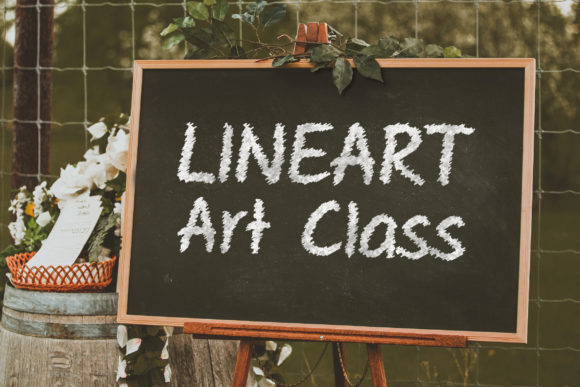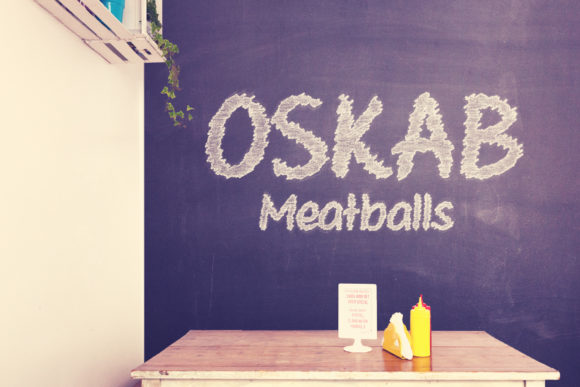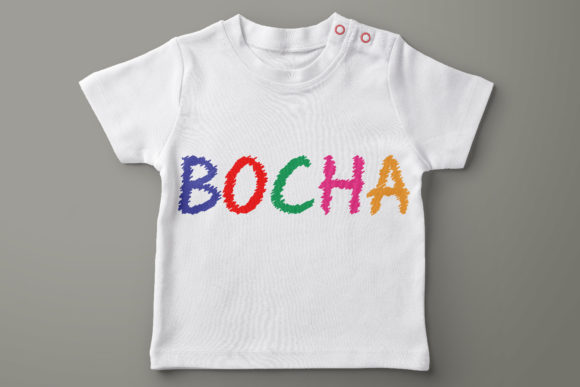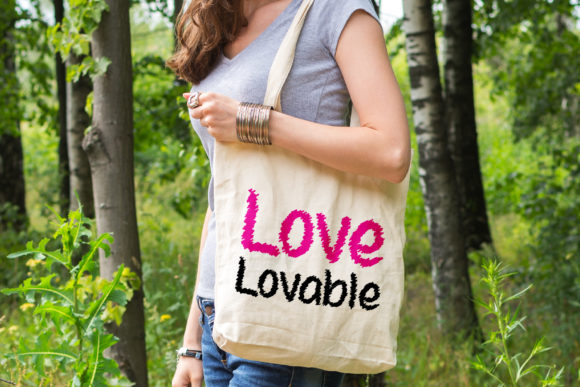
Introducing Arsiran Font: The Perfect Chalkboard-Inspired Typeface for Educational Projects
Are you a designer or crafter looking for a unique and fresh typeface to add a touch of personality to your school or educational projects? Look no further than Arsiran Font! This simple yet distinctive font is designed to give your text a chalkboard look that’s sure to capture the attention of your audience.
What is Arsiran Font?
Arsiran Font is a carefully crafted typeface that mimics the look of chalkboard writing. Its clean lines, subtle imperfections, and rustic charm make it the perfect choice for any project that requires a friendly, approachable feel. Whether you’re working on a school brochure, a educational website, or a DIY craft project, Arsiran Font is sure to add a touch of whimsy and personality to your text.
Key Features of Arsiran Font
- Simple and Fresh Design: Arsiran Font boasts a clean and modern design that’s easy to read and understand.
- Unique Chalkboard Look: The font’s chalkboard-inspired aesthetic adds a touch of nostalgia and playfulness to your text.
- Perfect for Educational Projects: Arsiran Font is specifically designed for school and educational projects, making it an ideal choice for teachers, students, and educators.
- Highly Versatile: The font can be used for a wide range of projects, from digital media to print materials.
Benefits of Using Arsiran Font
So why choose Arsiran Font for your next project? Here are just a few benefits of using this amazing typeface:
- Adds Personality to Your Text: Arsiran Font’s unique design helps your text stand out from the crowd and adds a touch of personality to your project.
- Enhances Readability: The font’s clean lines and simple design make it easy to read, even for younger audiences.
- Evokes a Sense of Nostalgia: The chalkboard-inspired aesthetic of Arsiran Font is sure to evoke memories of childhood and learning.
How to Use Arsiran Font in Your Projects
Using Arsiran Font in your projects is easy! Here are a few tips to get you started:
- Pair it with Other Fonts: Arsiran Font pairs well with other fonts, such as sans-serif fonts like Arial or Helvetica.
- Use it for Headings and Titles: The font’s bold and playful design makes it perfect for headings and titles.
- Add some Texture: Consider adding some texture to your text, such as a subtle chalkboard effect, to really make it pop.
Arsiran Font is a unique and versatile typeface that’s perfect for any school or educational project. Its simple yet distinctive design makes it easy to read and understand, while its chalkboard-inspired aesthetic adds a touch of personality and whimsy. Whether you’re a designer, teacher, or crafter, Arsiran Font is sure to become a valuable addition to your font library.